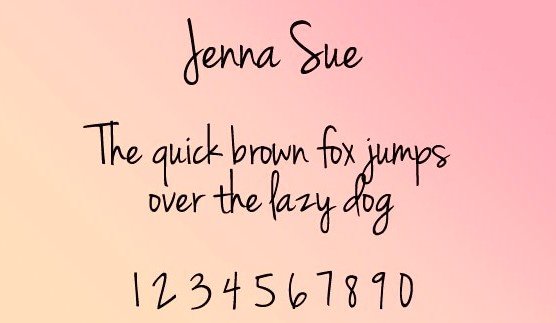
We are providing you with a typeface that features outstanding extended styles, enhancing the effectiveness and efficiency of any design. Introducing Jenna Sue Font, which offers additional features and boasts an impressive appearance.
Also, the best part of this font is that this typeface supports pairing so that you can easily utilize it with the combination of bodoni font to make your designs attractive.